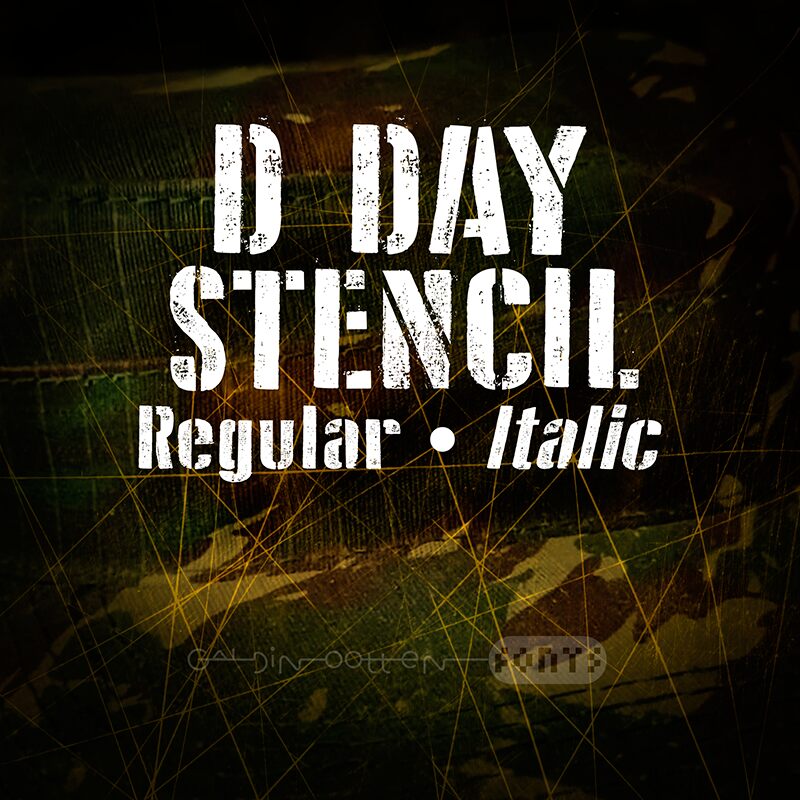
D Day Stencil Italic
D Day Stencil Italic font by Galdino Otten Fonts is an eroded, stencil display font with condensed characters. Its grunge texture and industrial feel present a unique look that has military-inspired vibes along with historical references to mid-20th-century designs. This free font’s style is utilitarian, rough, and raw – strong enough to transform titles.
This artistic typeface can be used on packaging designs, posters for events or films, invitation cards, branding material for rugged or tactical themes, t-shirt prints, hoodies and cap prints as well as book cover jackets. Use it also in logos or social media posts involving vintage or retro themes – especially in the men’s fashion industries.